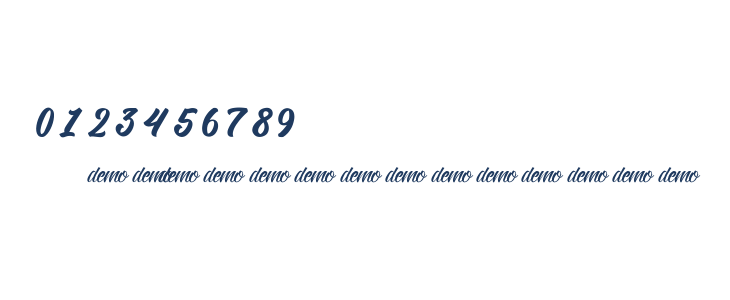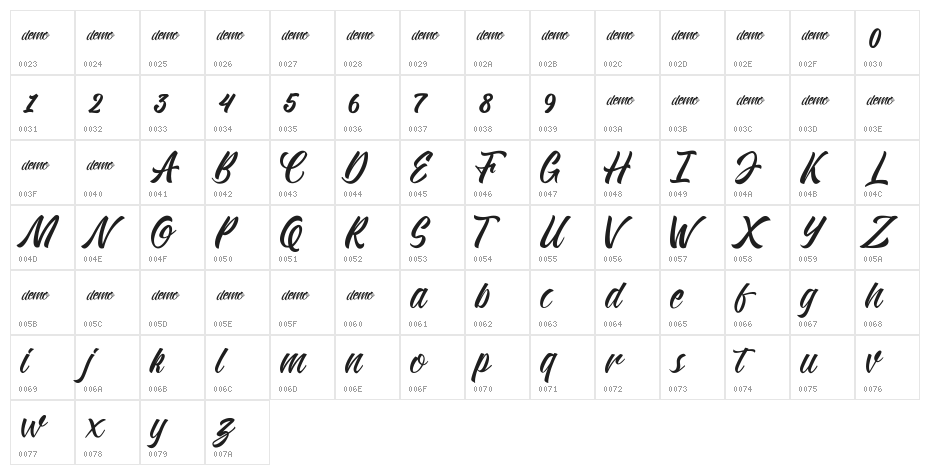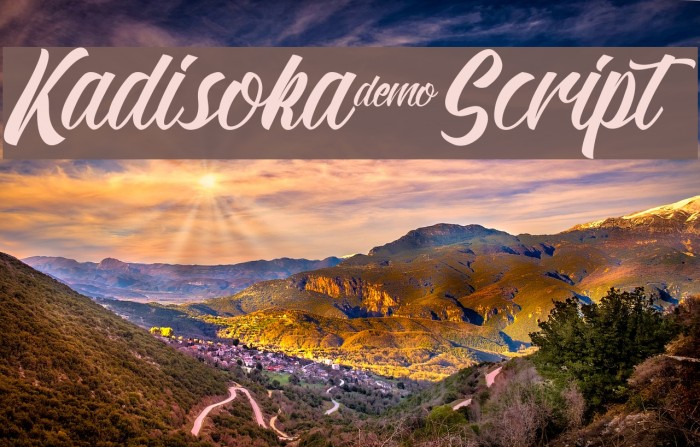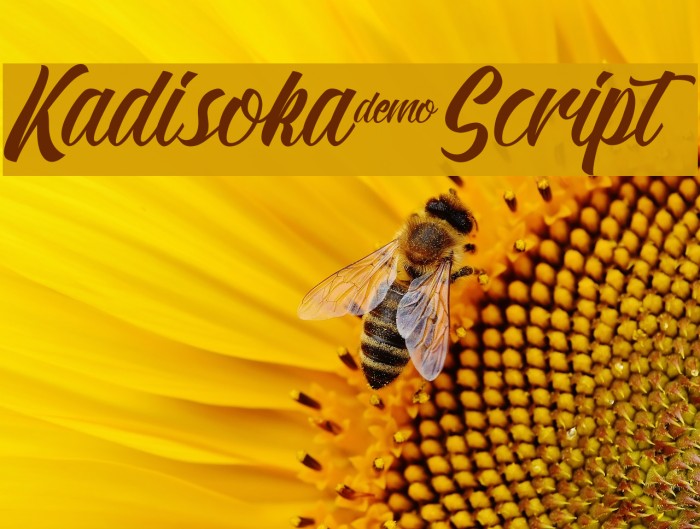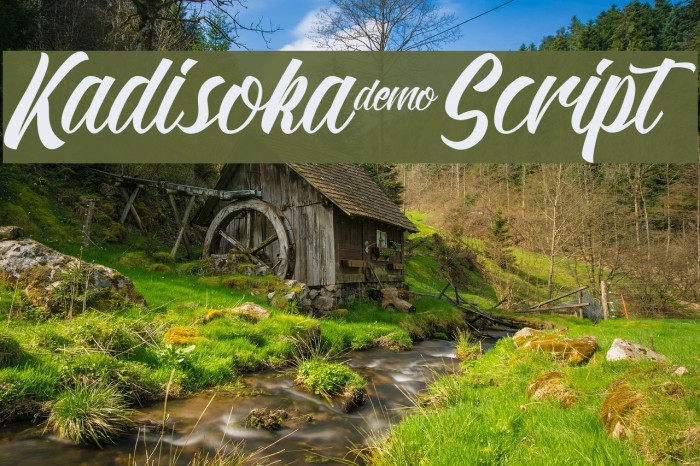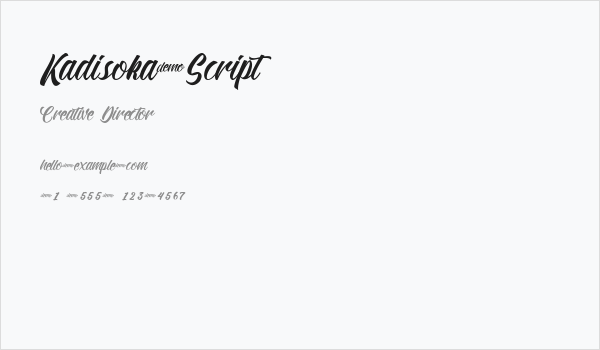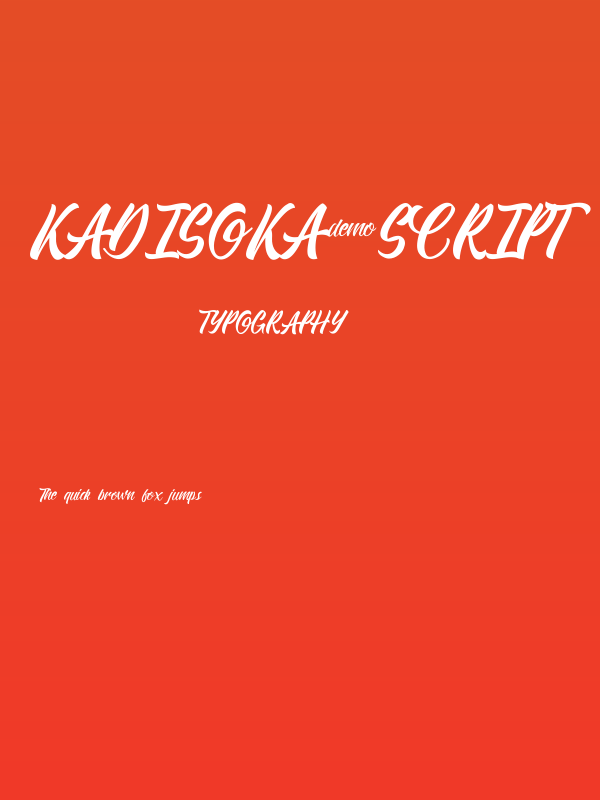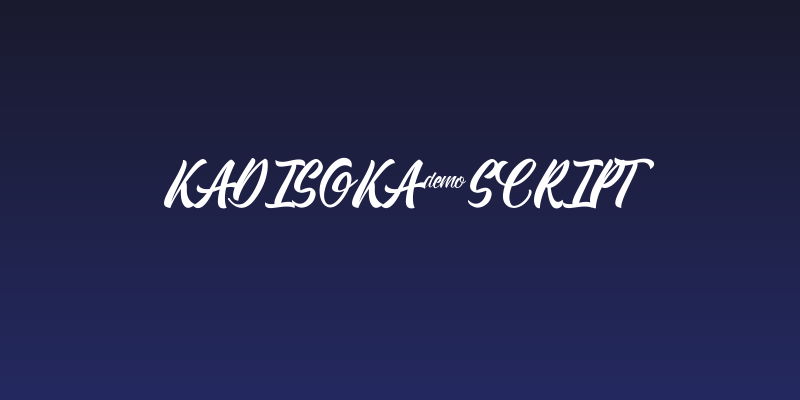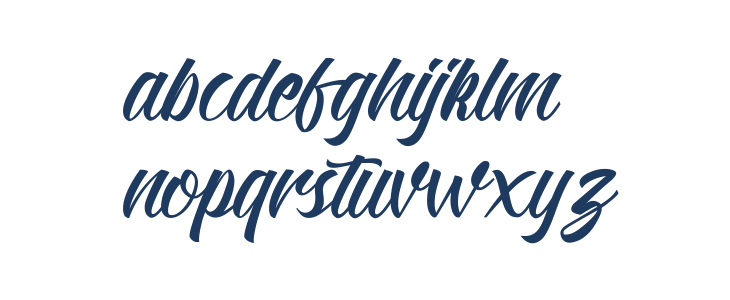
Kadisoka-Script Font
Kadisoka-Script Description
This script font exudes an elegant and flowing style, characterized by its smooth, cursive letterforms that mimic the fluidity of handwriting. The uppercase letters are bold and dynamic, with sweeping curves and flourishes that add a touch of sophistication. The lowercase letters maintain a consistent rhythm, enhancing readability while retaining an artistic flair. Numbers and special characters are crafted with the same attention to detail, ensuring a cohesive look across all elements. This font is perfect for projects that require a personal, yet polished touch.
Overall StyleElegant, Artistic
Use CaseLogos, Invitations, Branding
Proposed ProjectsIdeal for wedding invitations, branding, greeting cards, and elegant packaging designs.